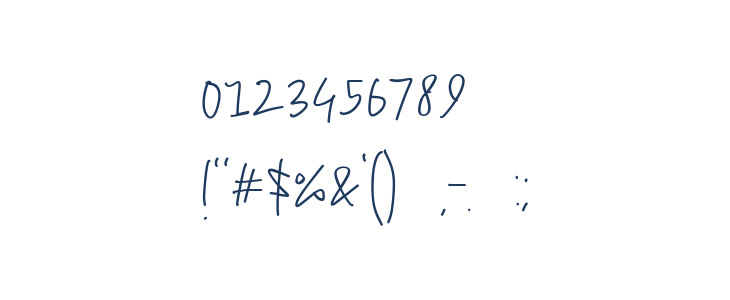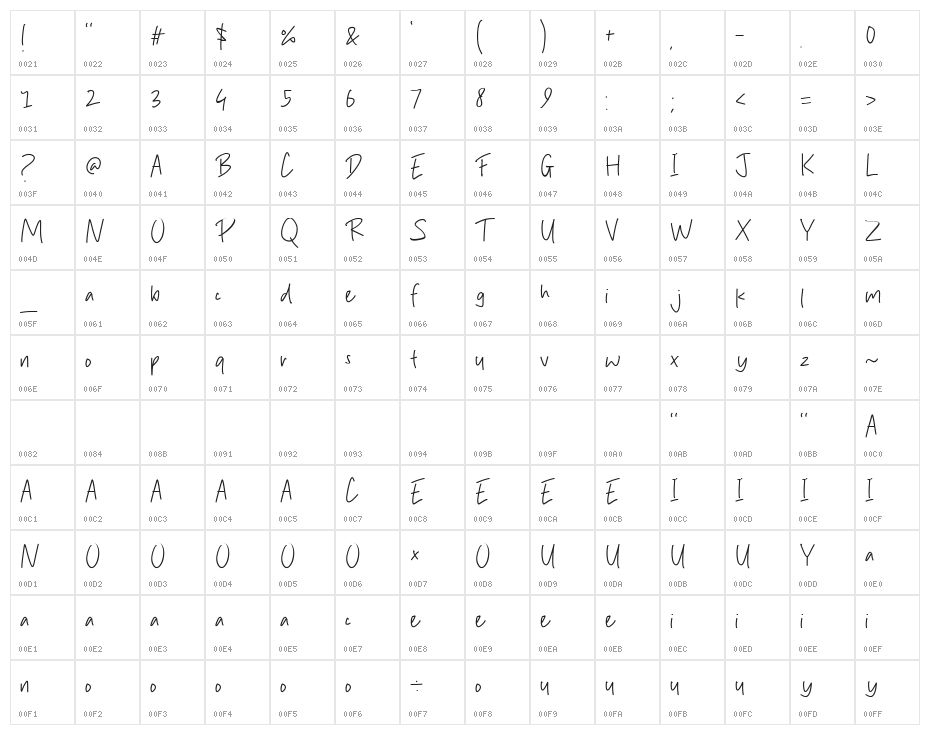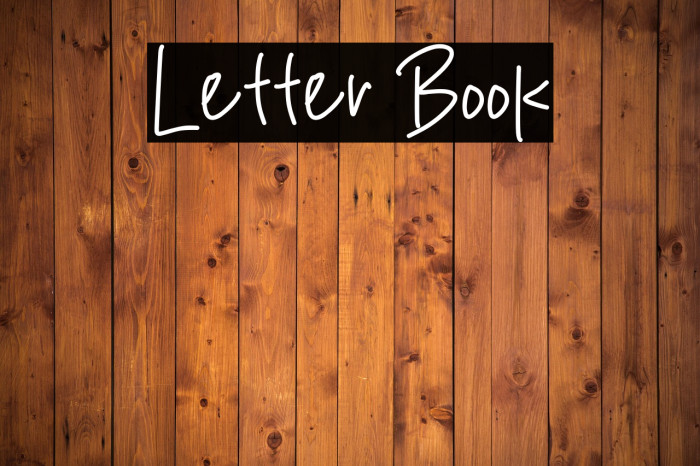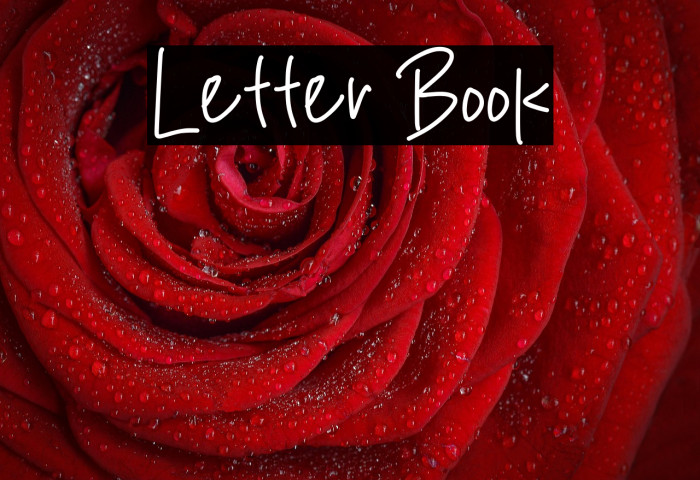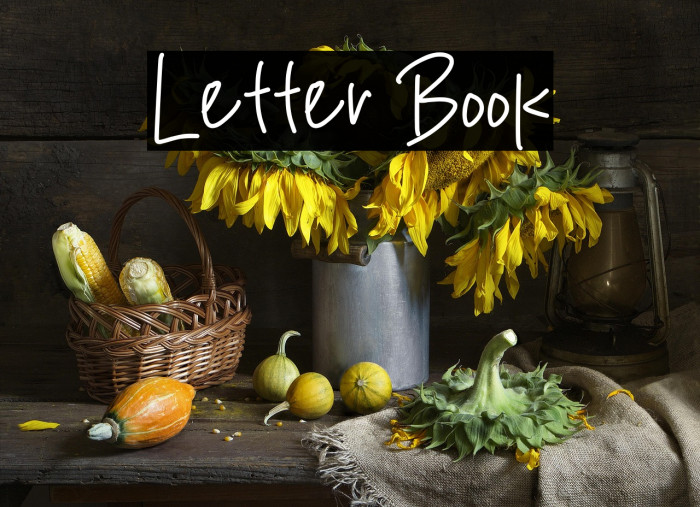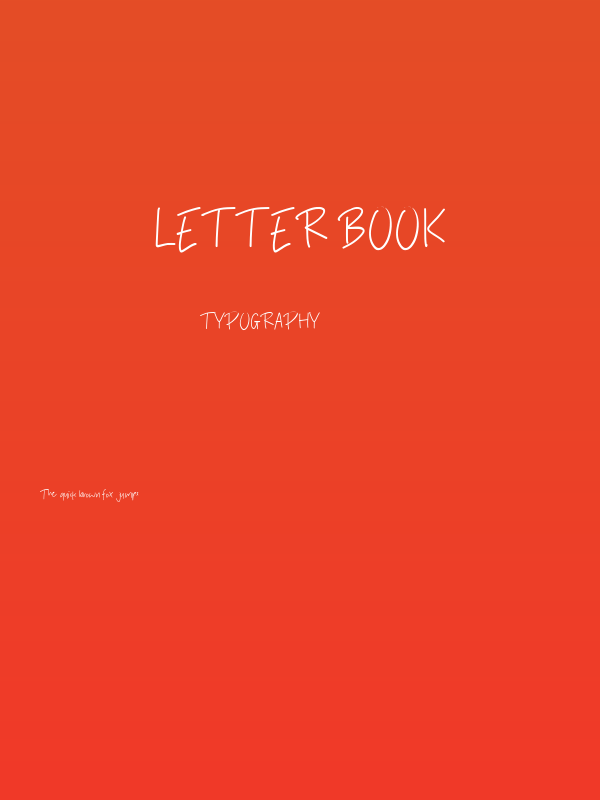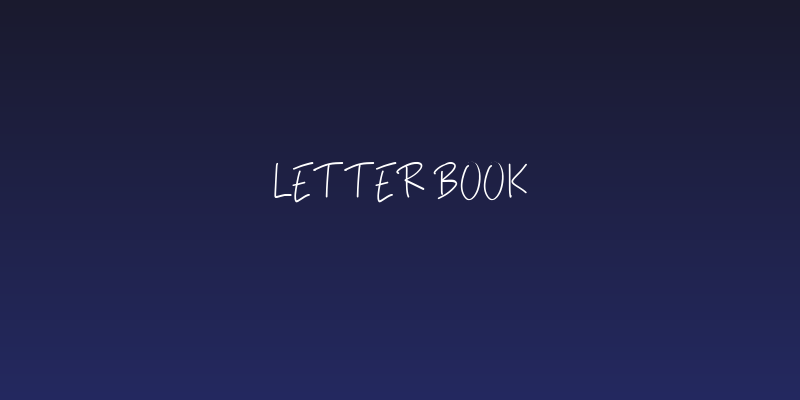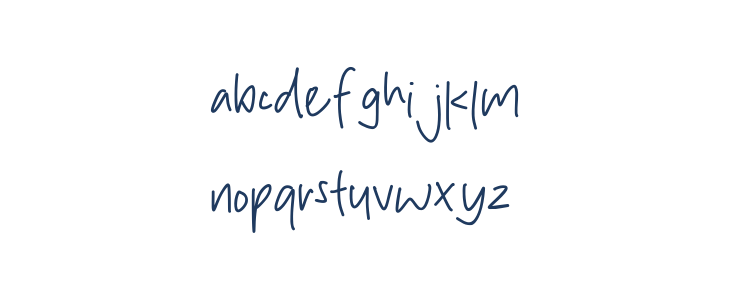
Letter Book Font
Letter Book Description
This font exudes a casual and handwritten style, characterized by its fluid and natural strokes. The letters are slightly slanted, giving it a dynamic and informal appearance. The uppercase and lowercase letters maintain a consistent flow, with rounded edges and varying line thickness that mimic the natural pressure of handwriting. The numbers and special characters follow the same organic style, ensuring a cohesive look across all characters. This font is perfect for projects that require a personal touch or a relaxed, approachable aesthetic.
| Overall Style | Casual |
| Use Case | Logos, Headlines, Informal text |
| Proposed Projects | Ideal for personal notes, invitations, greeting cards, and informal branding projects. |